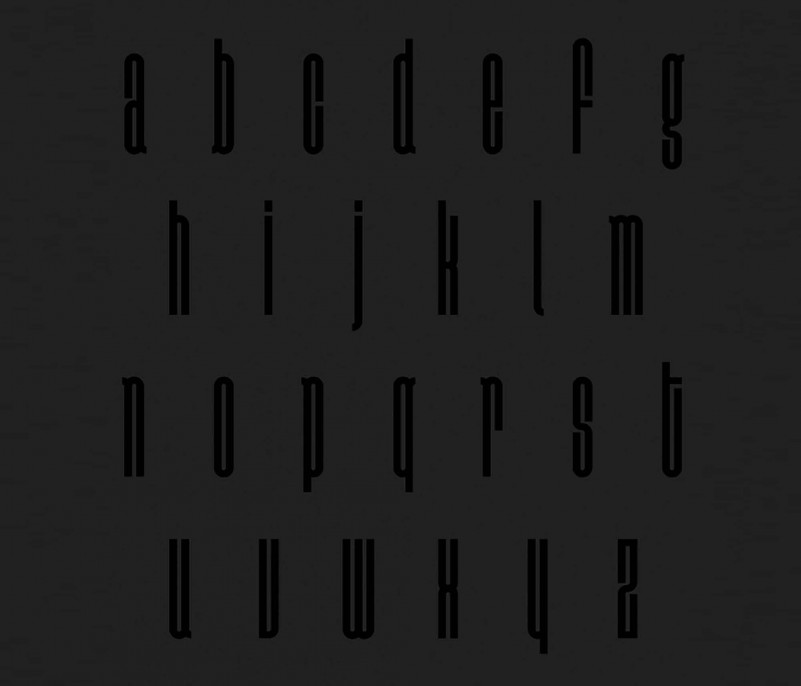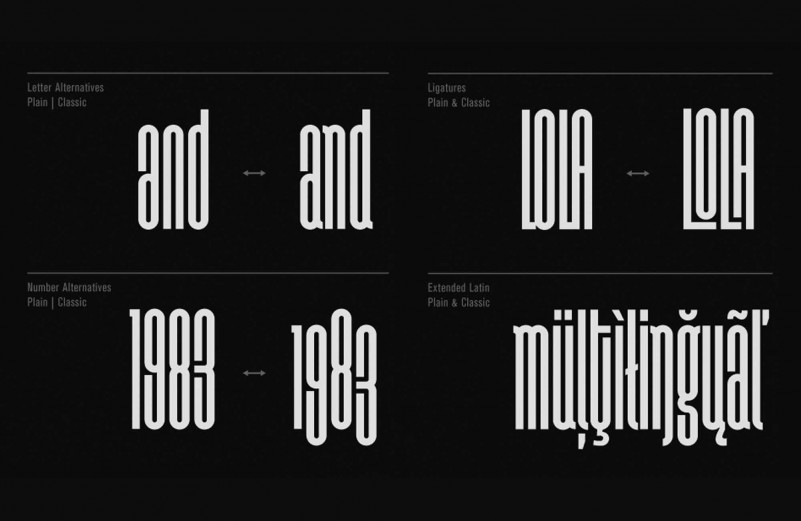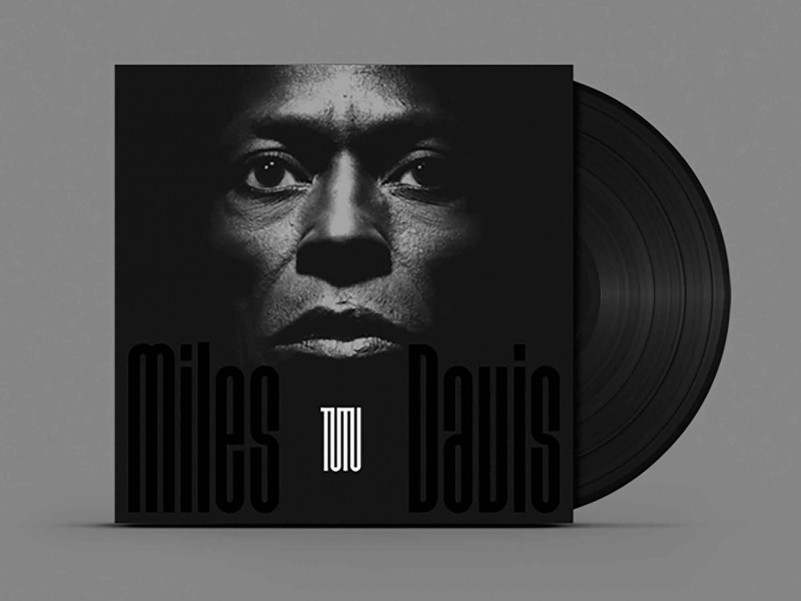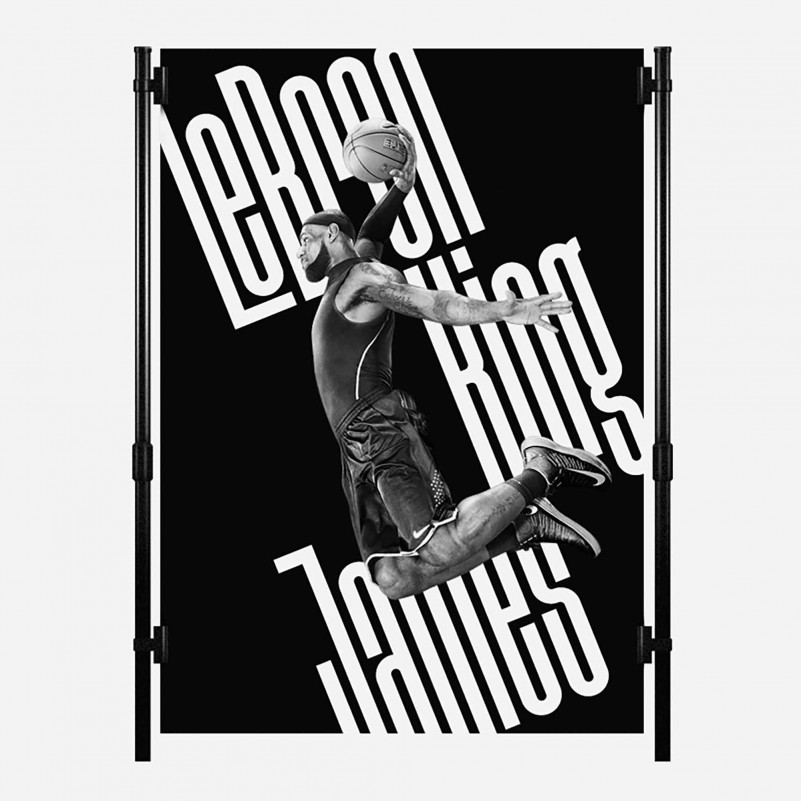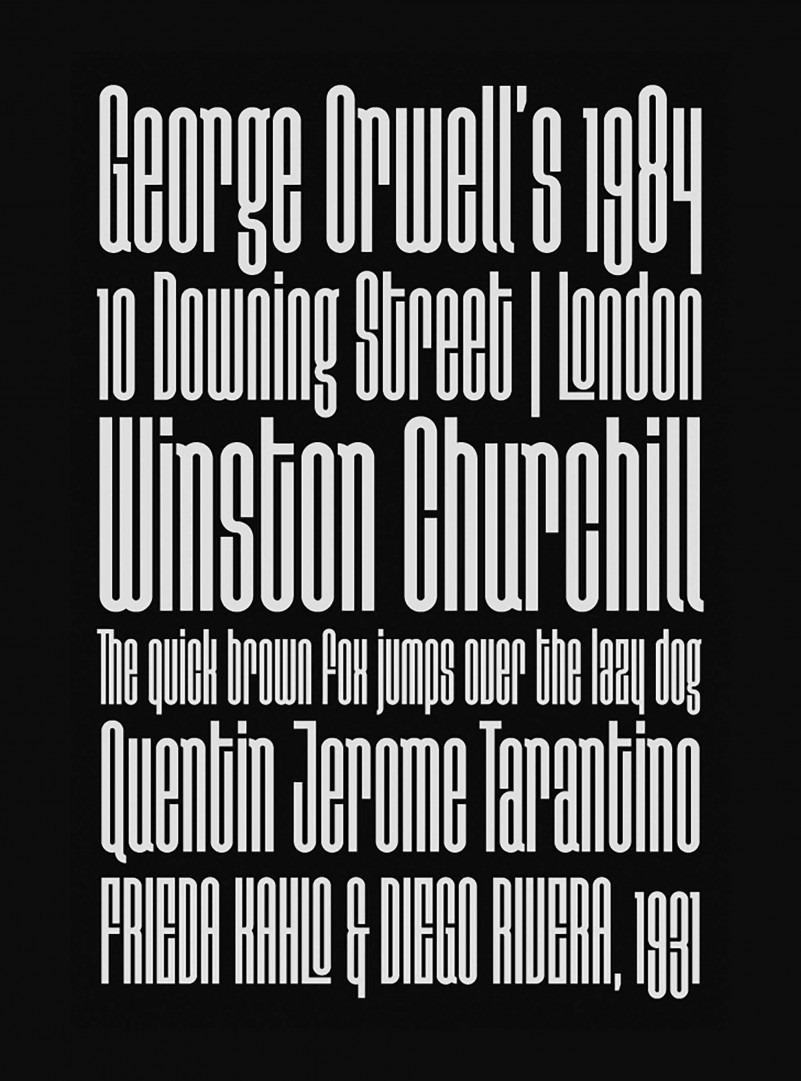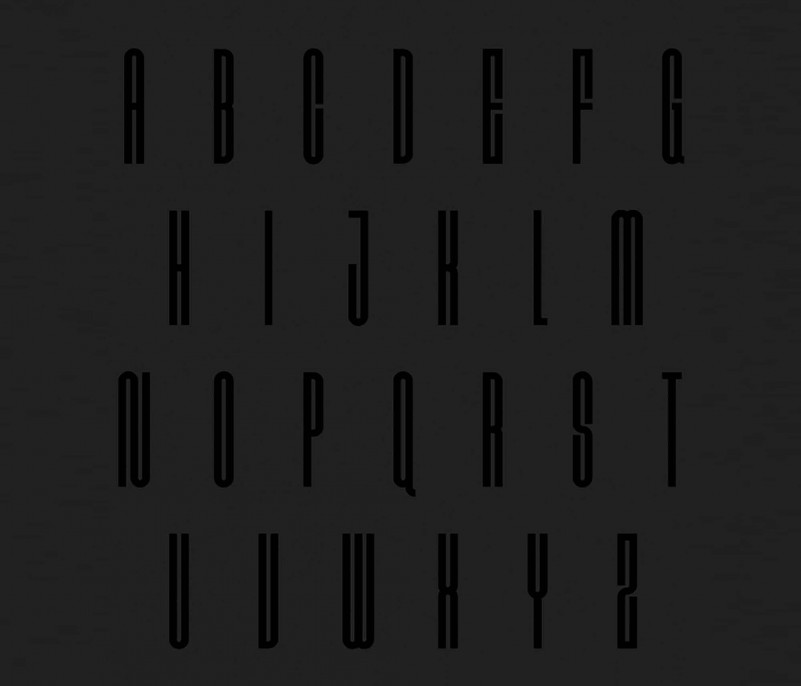
Disclaimer Free Font
Disclaimer – module-based display font coming in two variations: Plain and Classic. Designed by me and available for free download at Fontfabric type foundry.
| Classification: | Display Fonts, Retro / Vintage Fonts, Sans Serif Fonts, Style / Aesthetic Fonts |